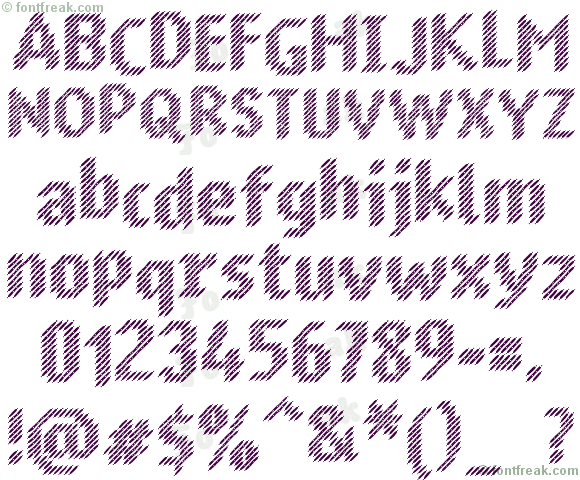
Murrx
The Murrx font, designed by Peter Wiegel, is a unique display typeface that captivates with its distinctive visual style. This font is categorized as a decorative typeface, featuring an intriguing pattern of diagonal stripes that create a sense of motion and energy. The alternating stroke weight adds a playful contrast, making it visually engaging while remaining legible. The spacing between characters is well-balanced, enhancing readability without compromising its artistic flair.
Murrx is particularly suitable for a variety of design applications. Its eye-catching style makes it an excellent choice for movie posters, where it can draw attention and convey a sense of excitement. Additionally, it works well for restaurant menus, giving a modern twist to the traditional dining experience. The font also shines in event promotions, such as music festivals or art shows, where a bold statement is essential. Moreover, it can be effectively used in branding projects for small businesses looking to stand out in a competitive market.
The target audience for the Murrx font includes graphic designers, small business owners, and content creators who value creativity and originality in their projects. Its freeware license allows for easy access and use, making it accessible for those on a budget or looking to experiment with typography without financial constraints.
What sets the Murrx font apart is its blend of artistic expression and functional design. It strikes a balance between being visually striking and practical, making it a versatile choice for various creative endeavors. For those seeking to enhance their designs with a distinctive touch, the Murrx font free download offers an opportunity to incorporate this unique typeface into their work, ensuring that it stands out in any project.